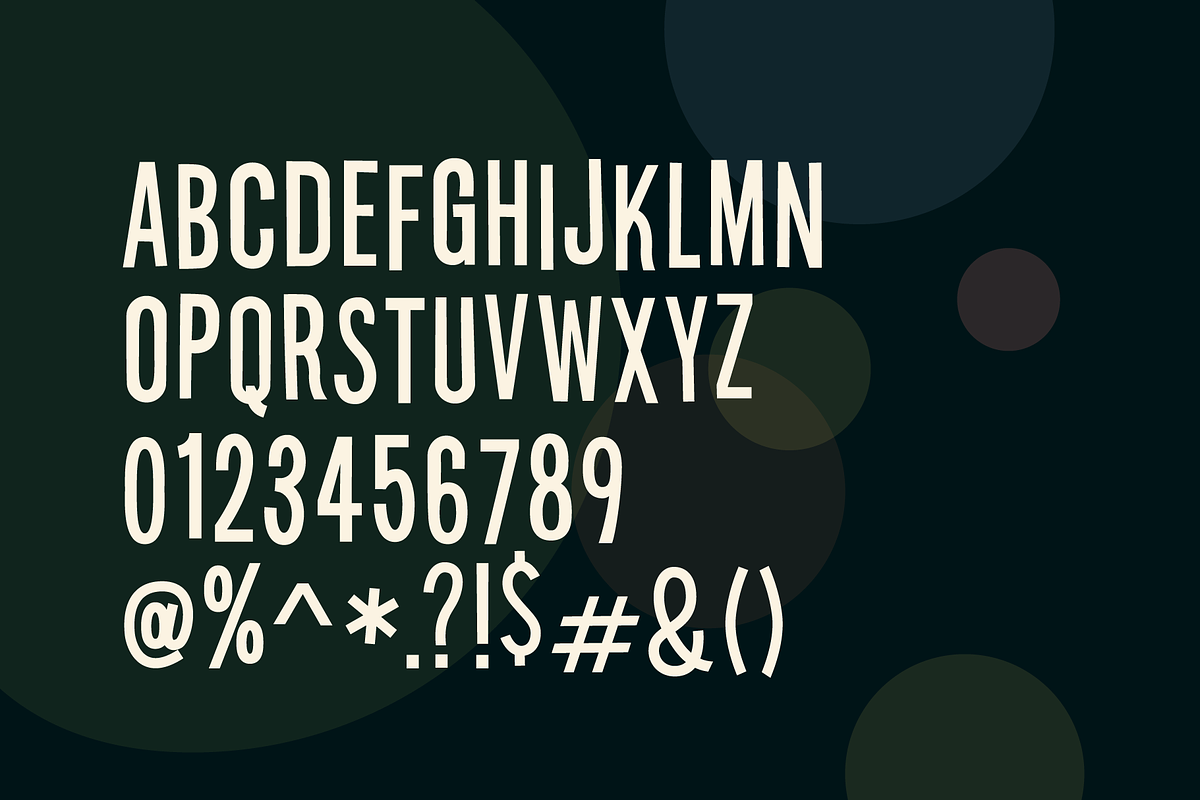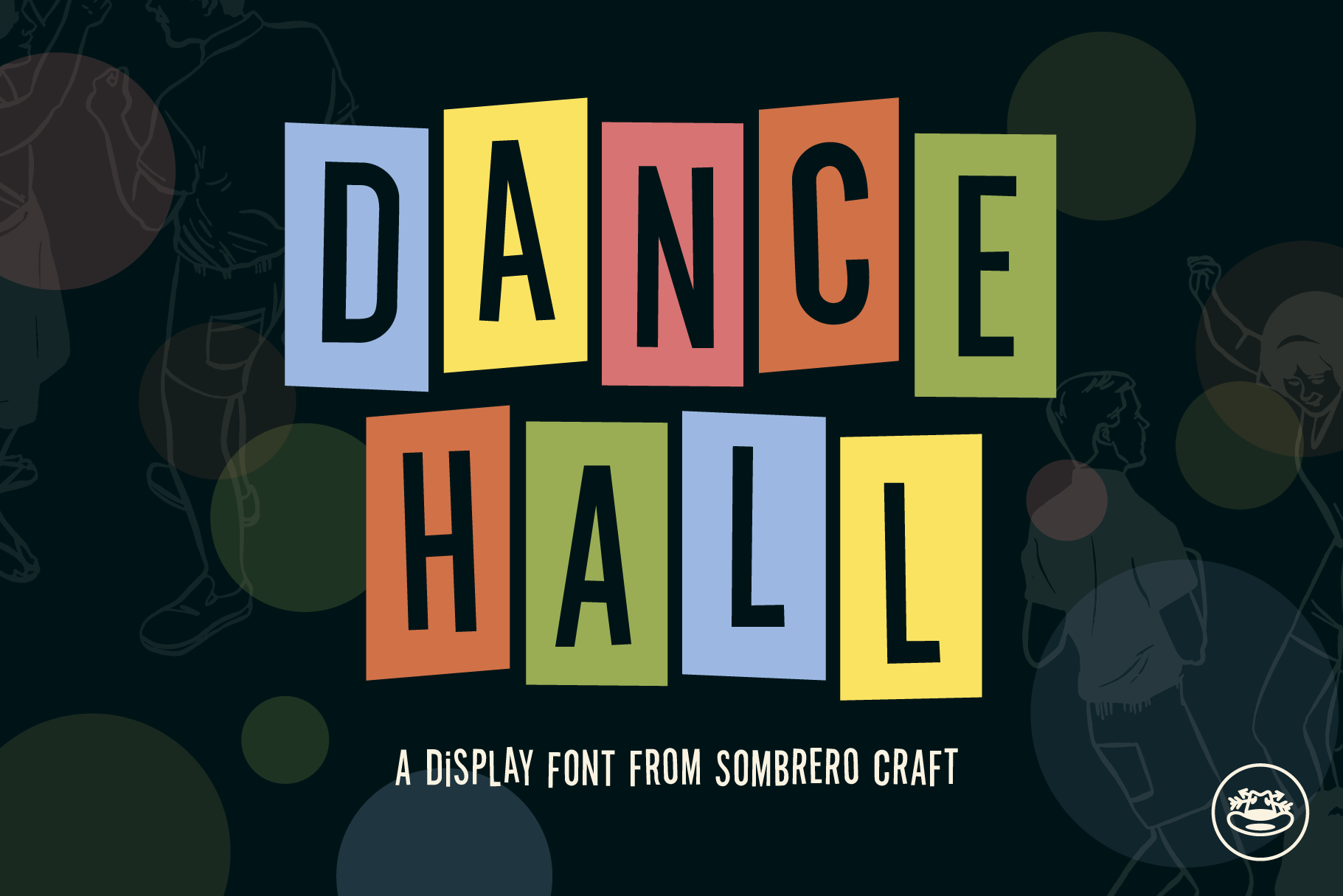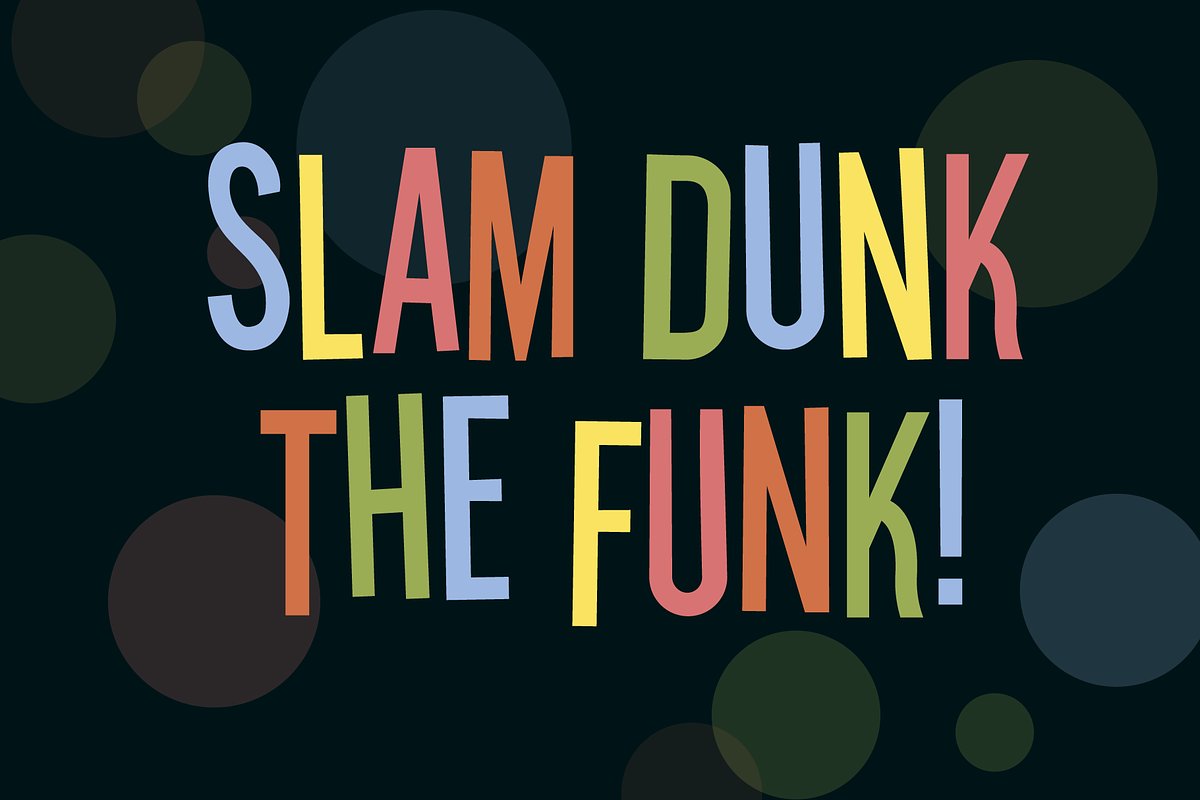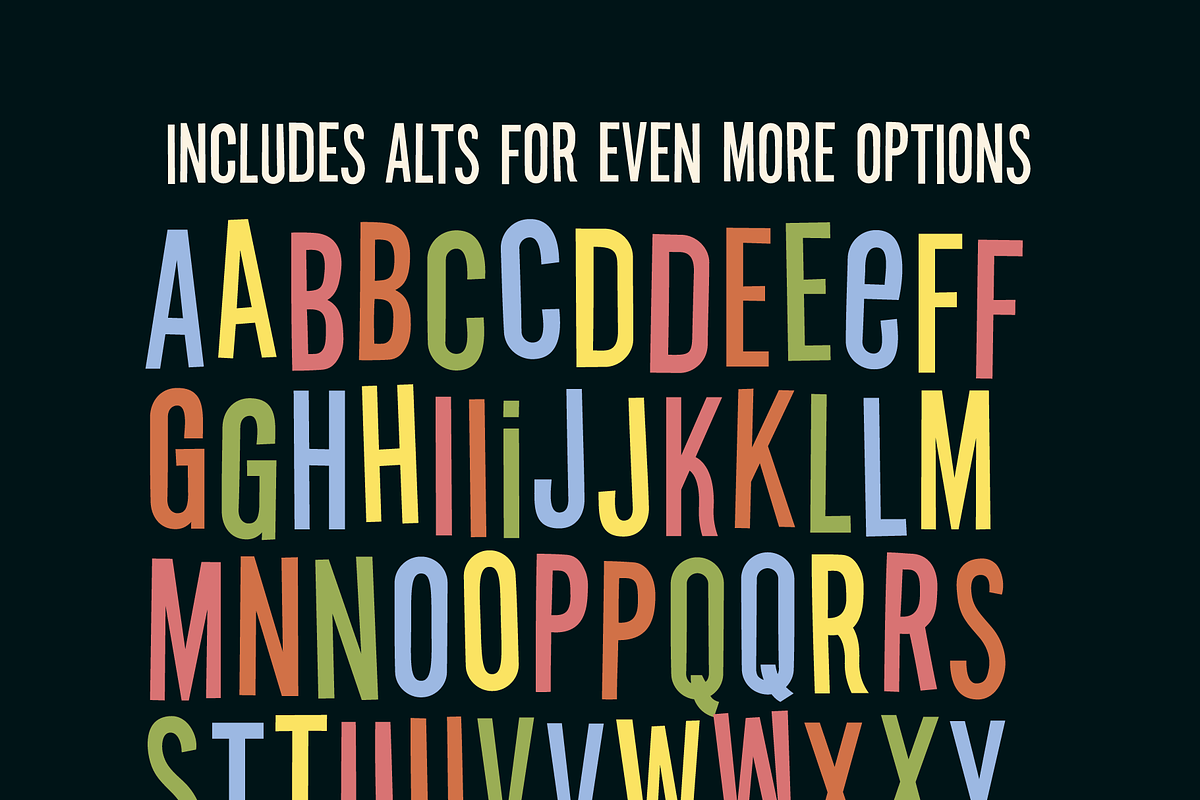
Dance Hall Display Font
An on-beat sans serif font, that's off-beat, and a little fun. A display font with an uneven baseline and slew of alternates to give a whimsical, custom feel to any of your designs.